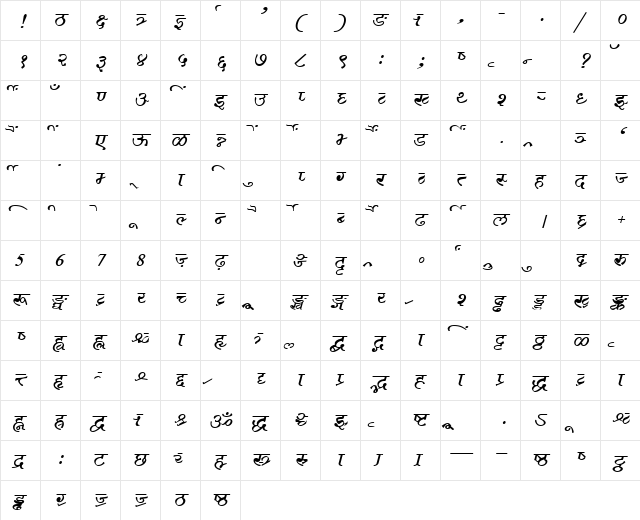
AkrutiDevAkankshaMedium Italic Font Preview
AkrutiDevAkankshaMedium Italic
Design Context for AkrutiDevAkankshaMedium Typeface
AkrutiDevAkankshaMedium is a composed and adaptable typeface that performs quietly and consistently across a wide range of design contexts. The dynamic lean of this cut emphasises speed and emphasis in any layout.
Pro Tip: Use AkrutiDevAkankshaMedium for emphasis, pull quotes, and subheadings where its slanted energy can add rhythm to the layout.